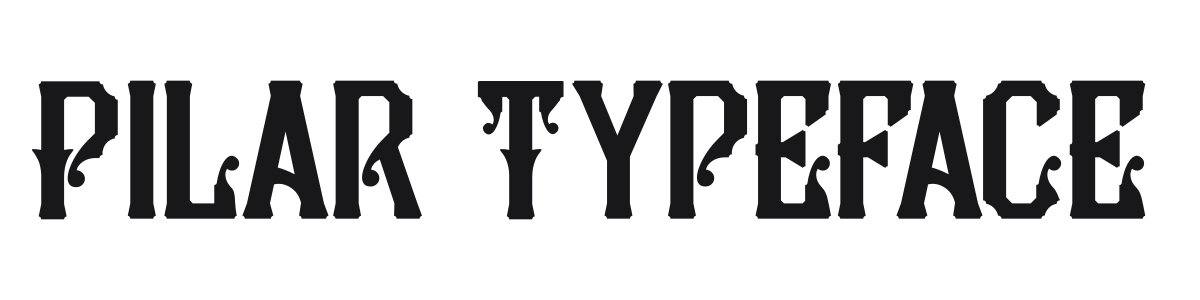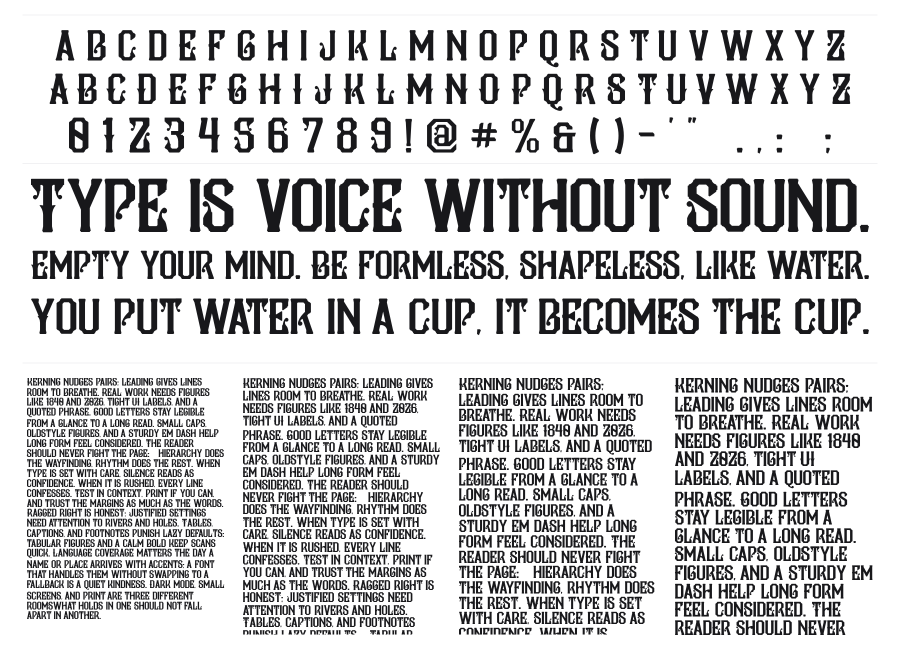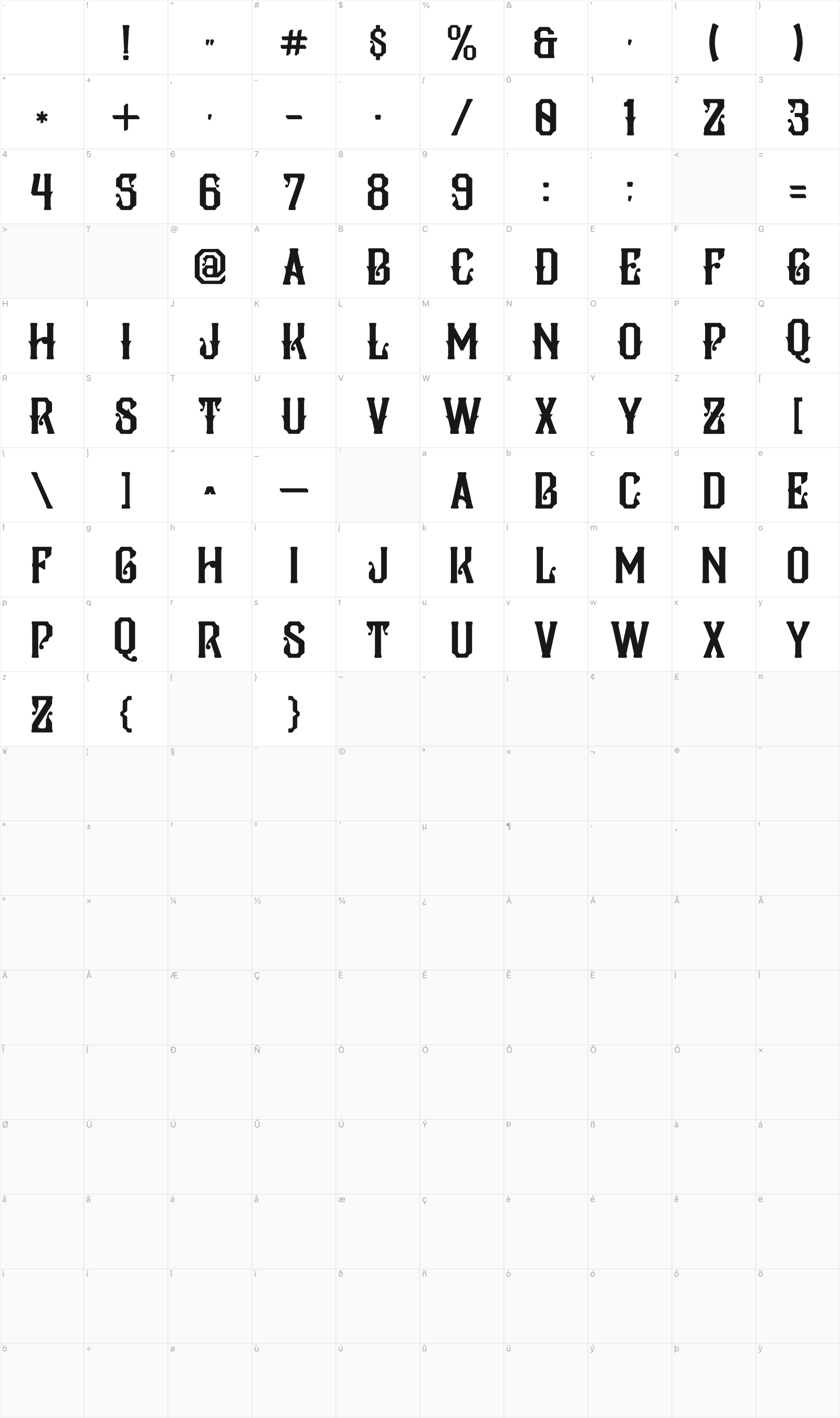
Pilar Typeface
Pilar Typeface is a bold, condensed display face from Ilham Herry that draws on the ornamental lettering traditions of vintage Western typography. The decorative details and tight proportions give it the feel of old saloon signage or frontier-era poster work, with enough visual weight to anchor headlines, packaging, and branding that leans into Americana nostalgia.